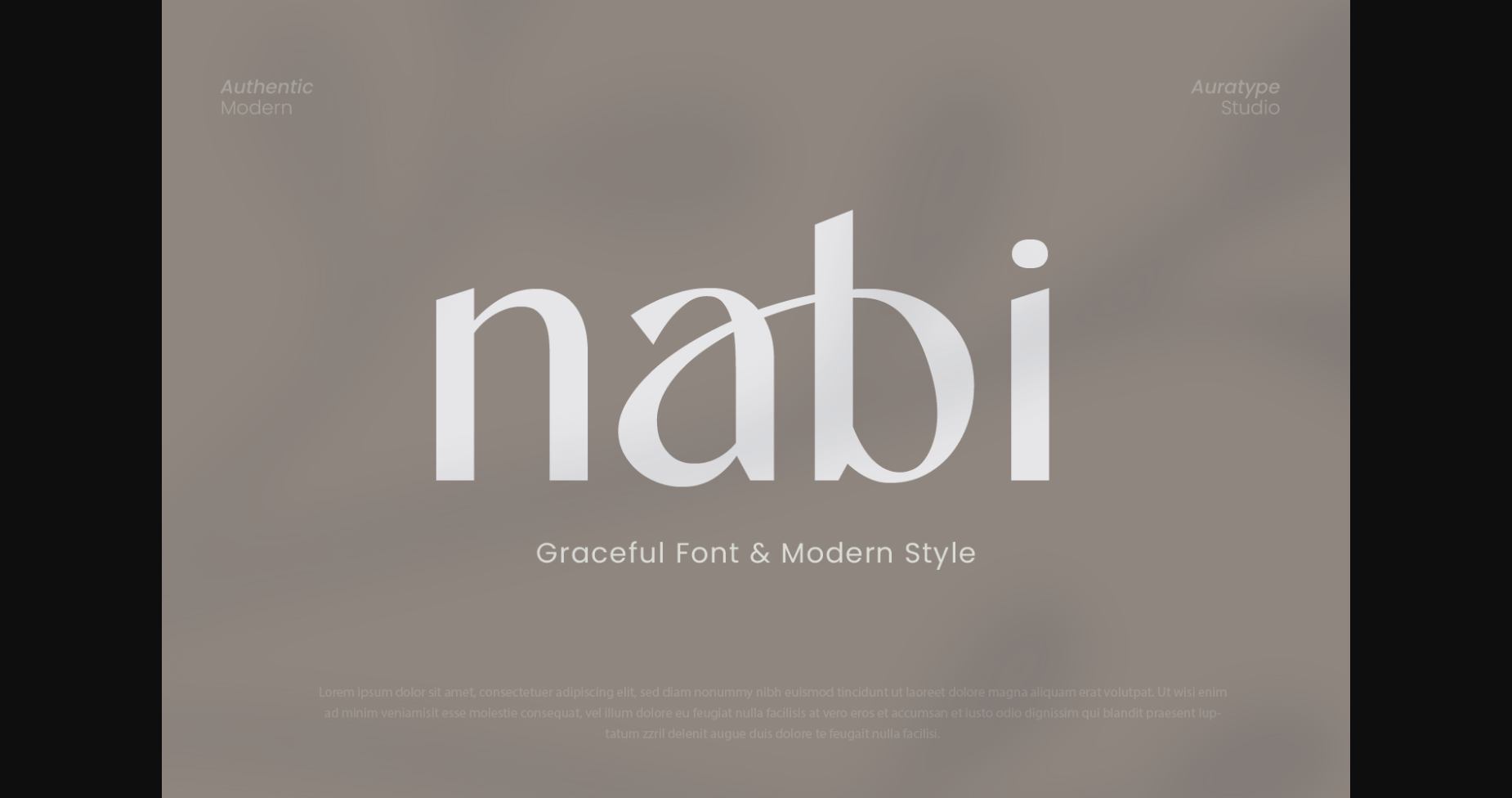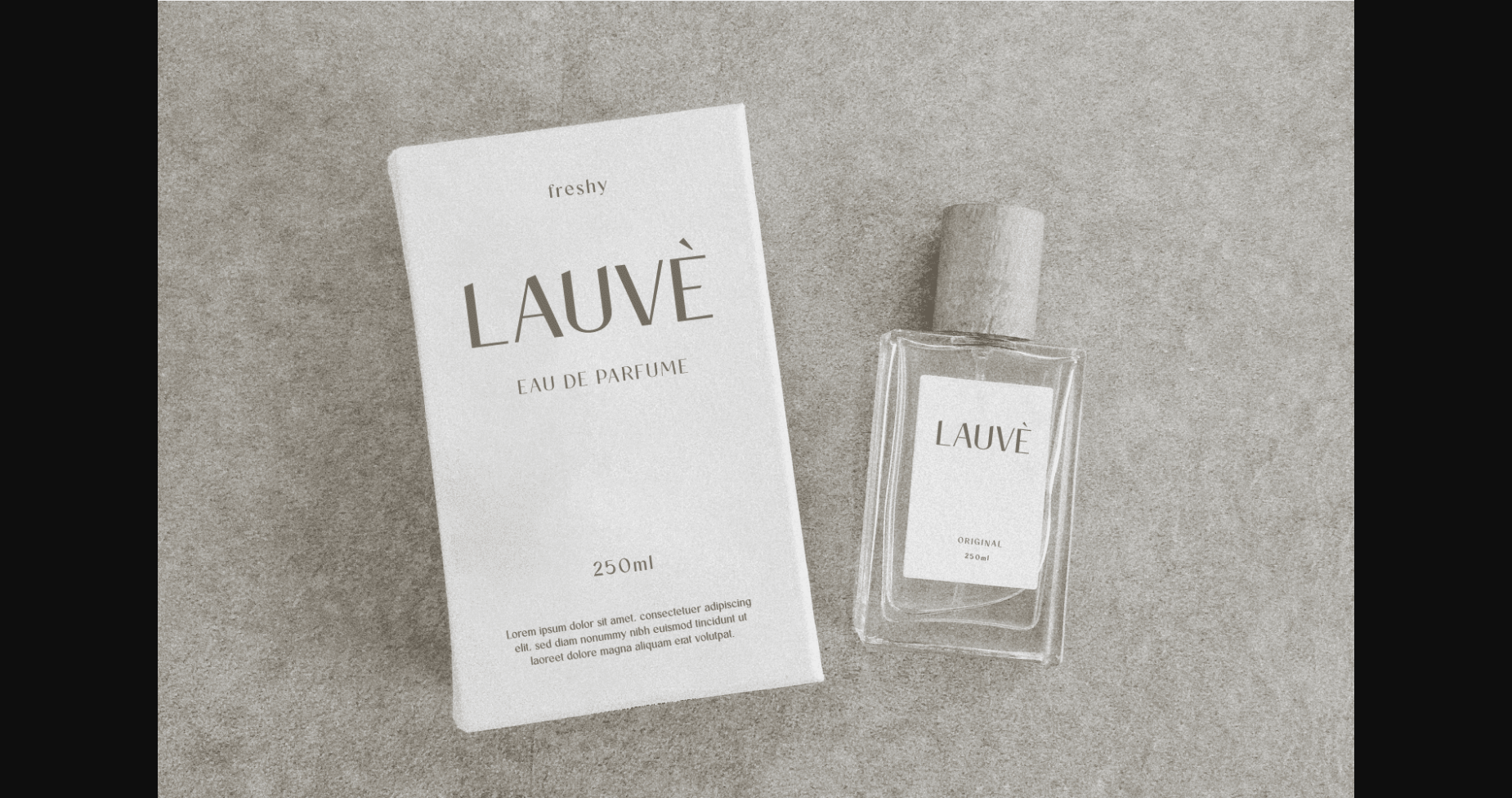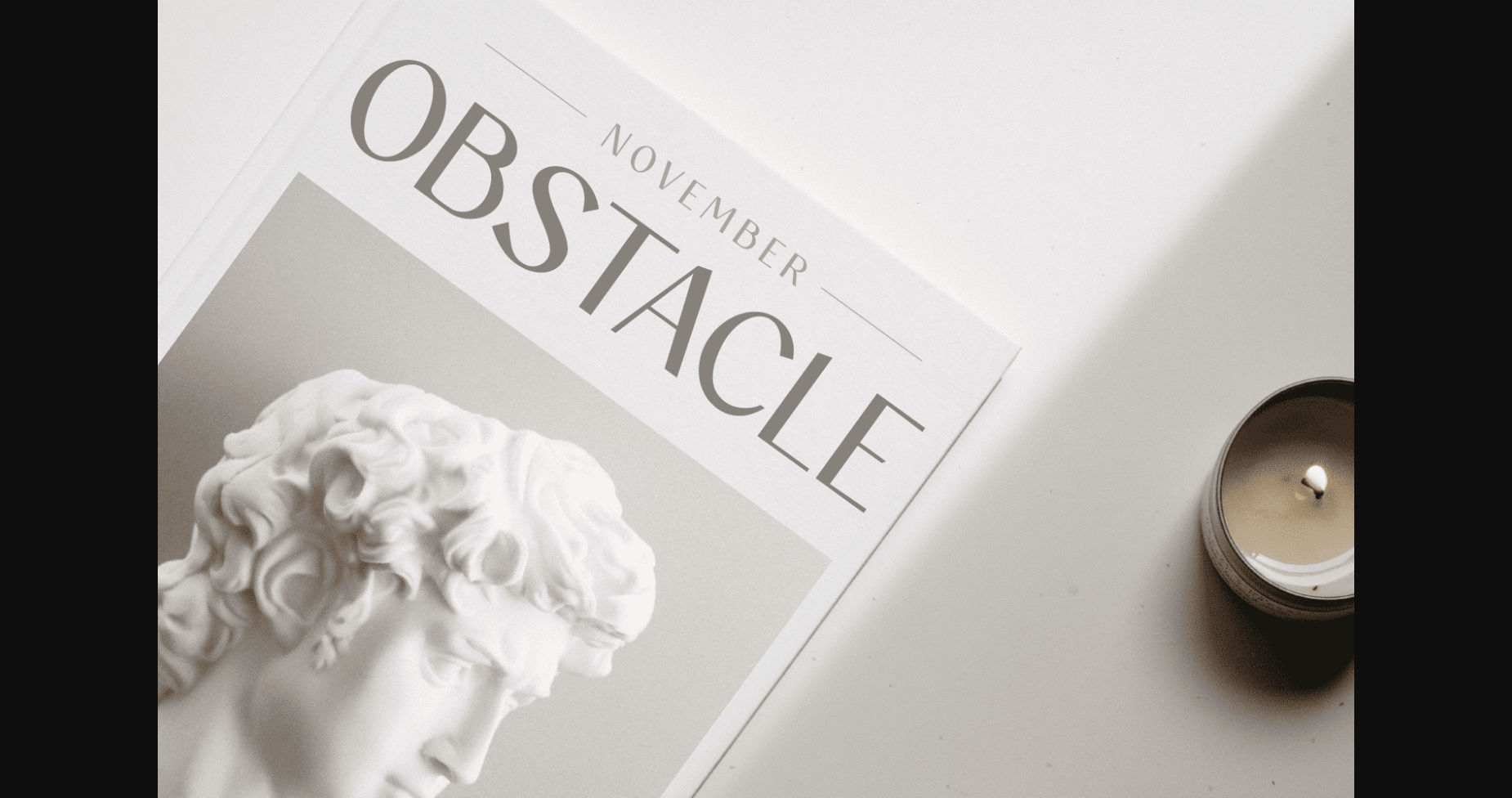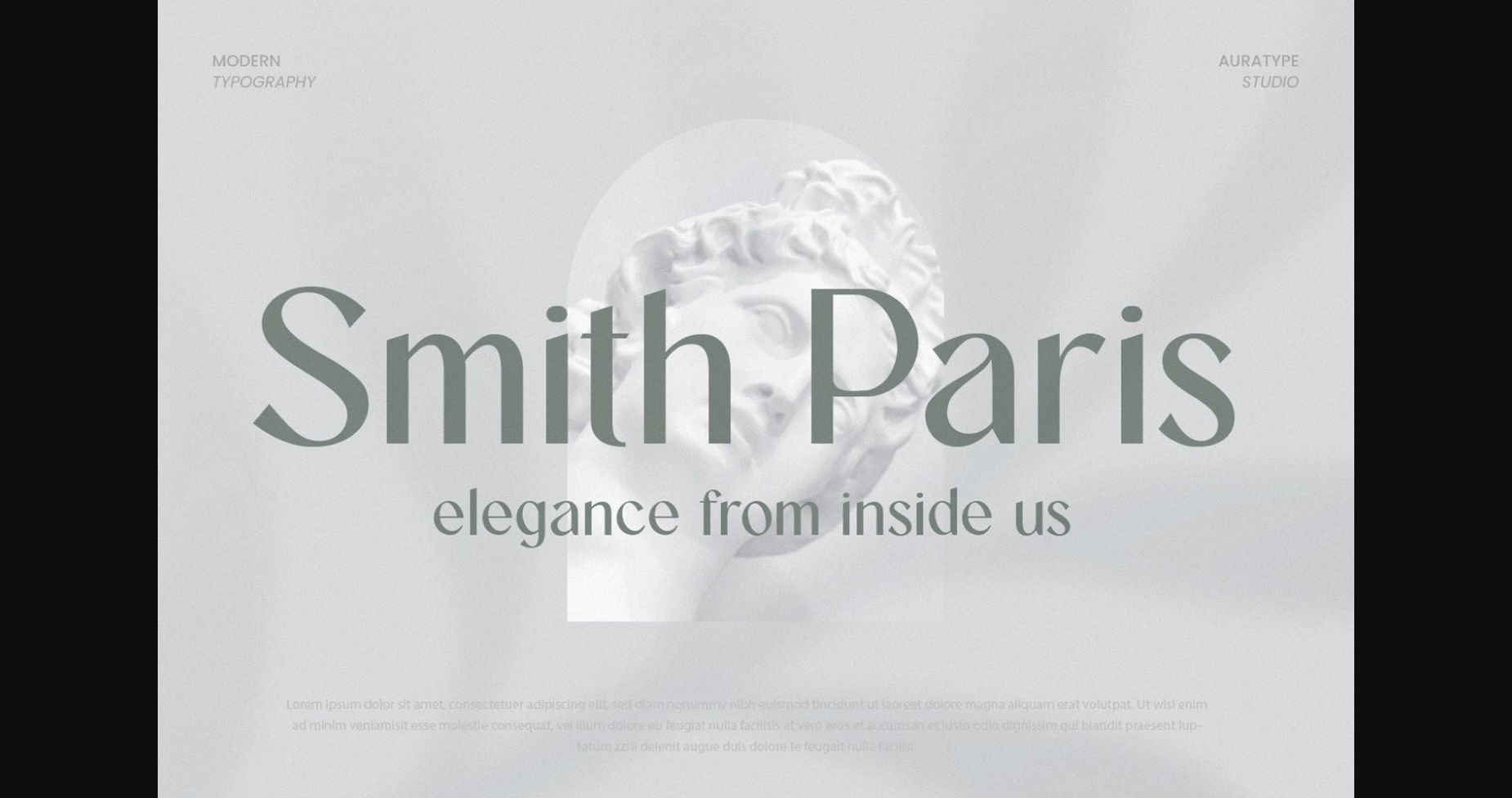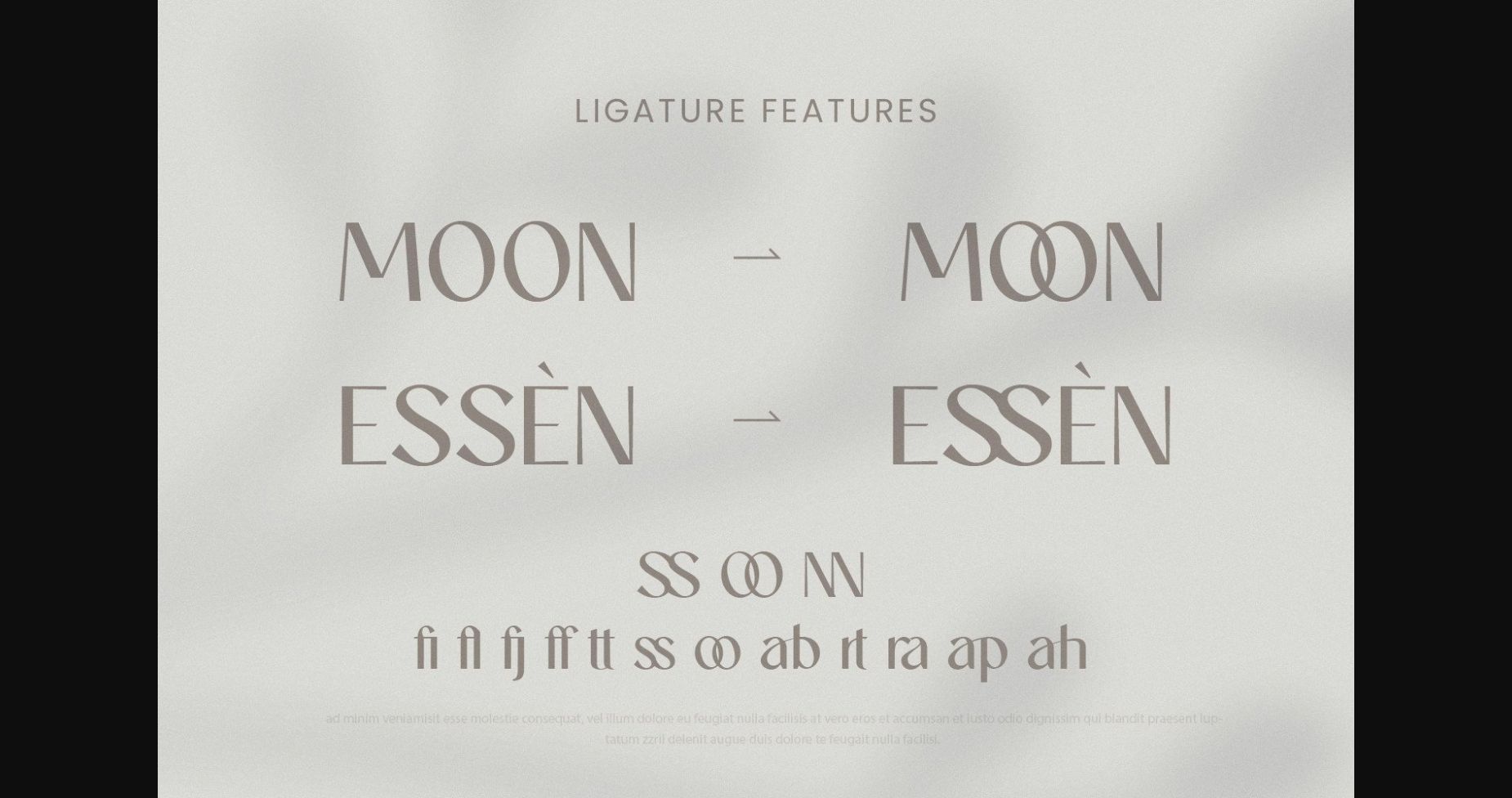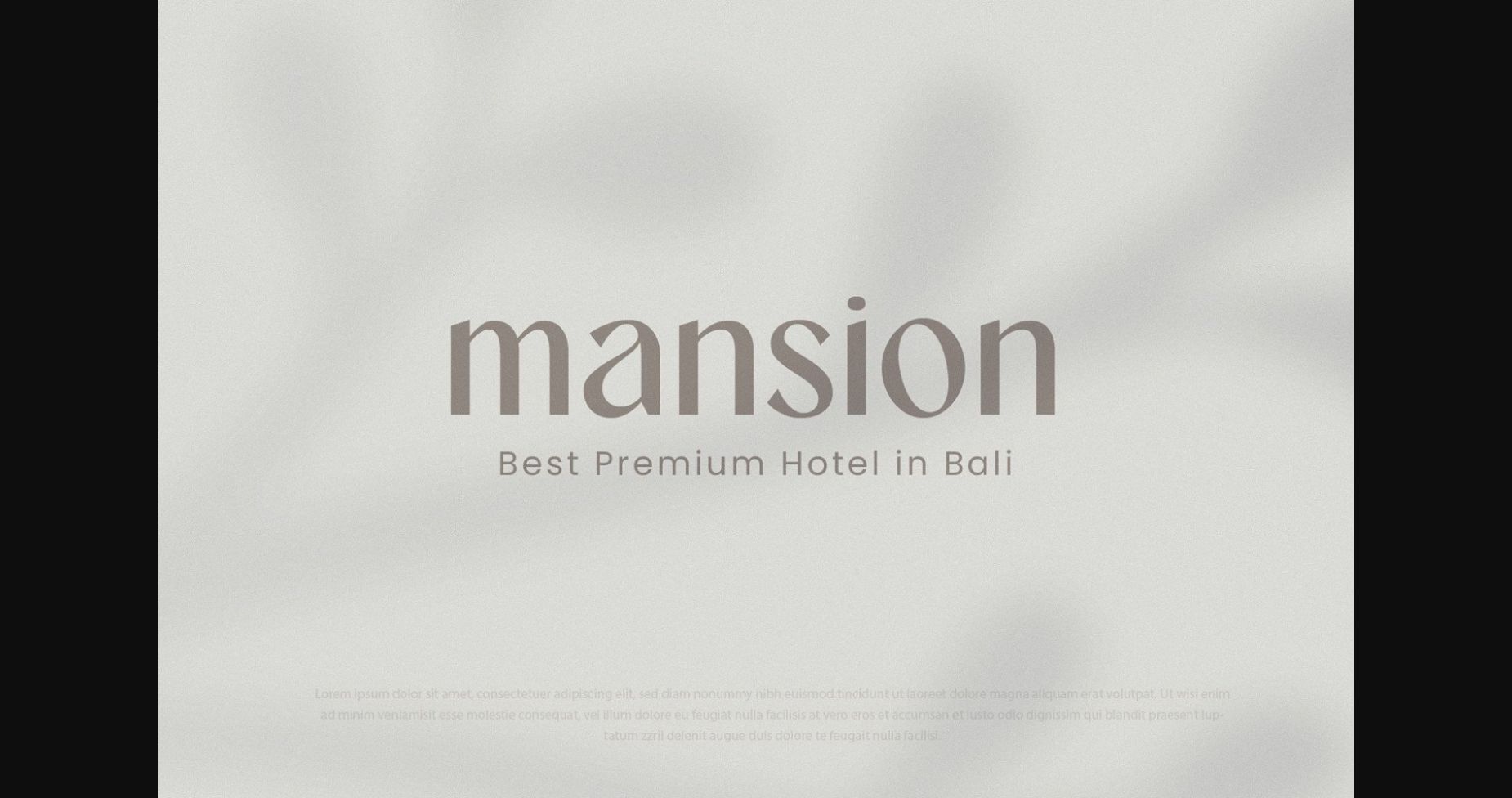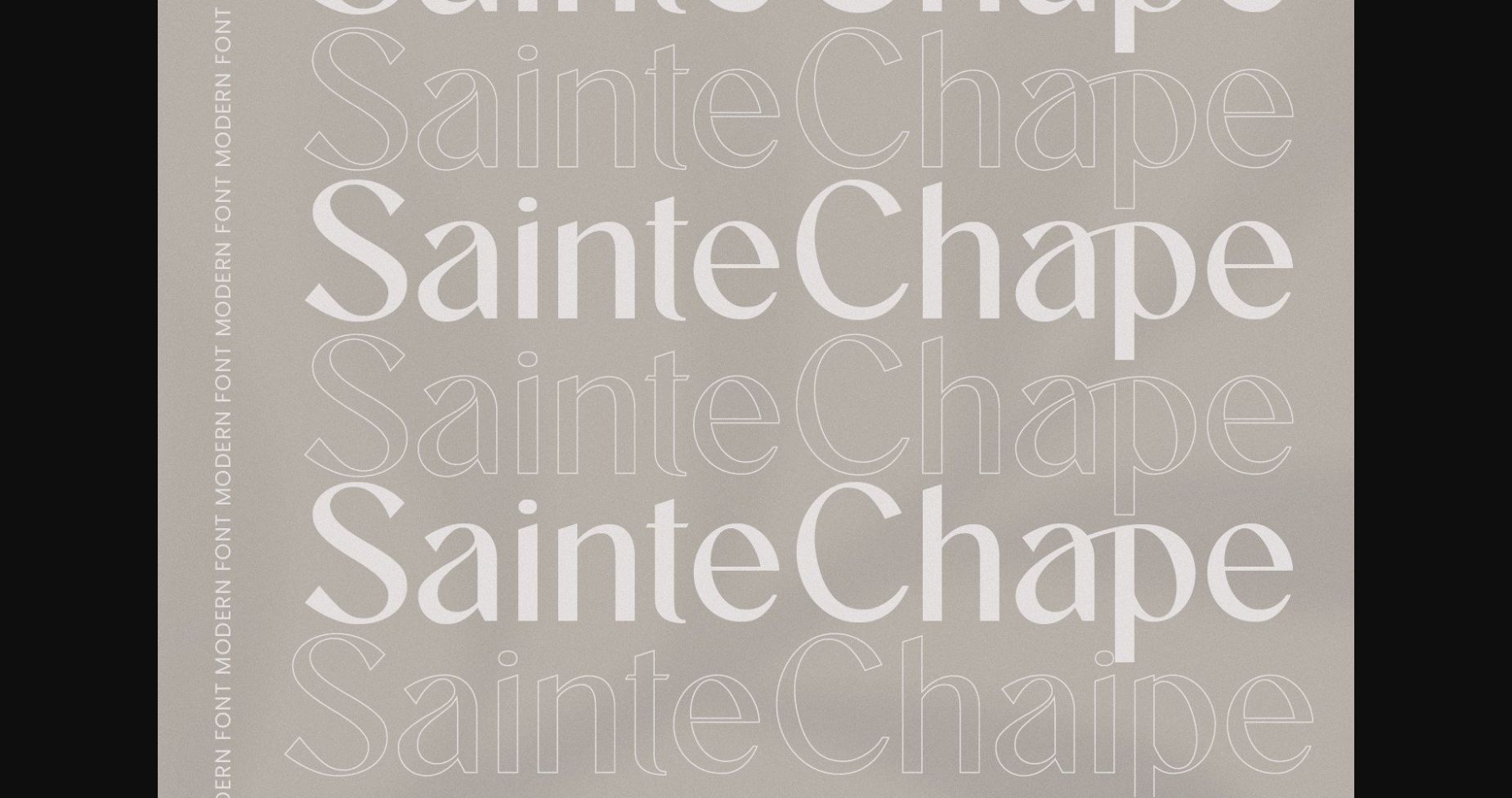
About Nabi Font
Nabi is a refined and elegant sans serif font. Its chic and graceful style makes it suitable for a wide pool of creative ideas. No matter the topic, this font will be an incredible asset to your fonts’ library, as it has the potential to elevate any creation.